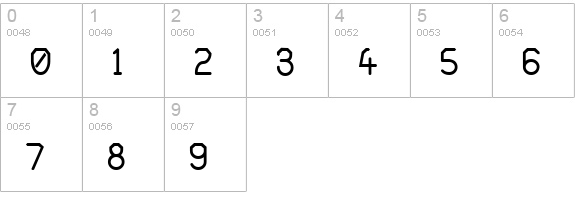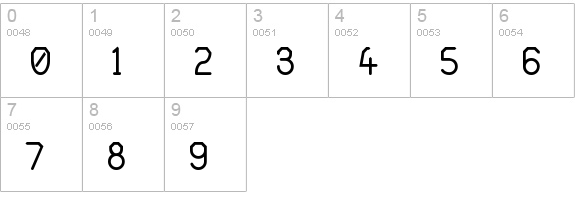
Alpha Romanie G98 Font Details
Alpha Romanie G98 is a stunning font that exudes elegance and sophistication. With its unique blend of classic Roman typography and modern design elements, this font is perfect for adding a touch of class to your projects. Its clean lines and graceful curves make it a versatile choice for a wide range of design applications, from logos to invitations to branding materials. What sets Alpha Romanie G98 apart is not just its beauty, but also its accessibility. This premium font is available for free download at FontsMarket.com, making it easy for designers and creatives to access and use in their work without any cost. Whether you're a seasoned professional or just starting out, Alpha Romanie G98 is sure to elevate your designs and leave a lasting impression. Download it today and add a touch of sophistication to your projects.